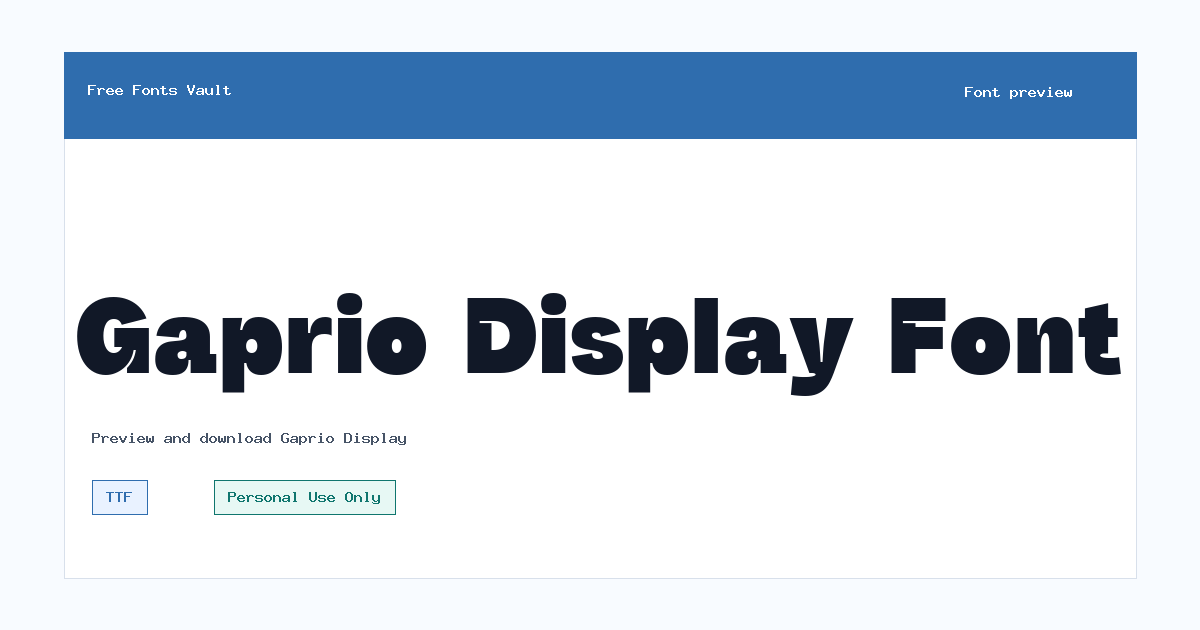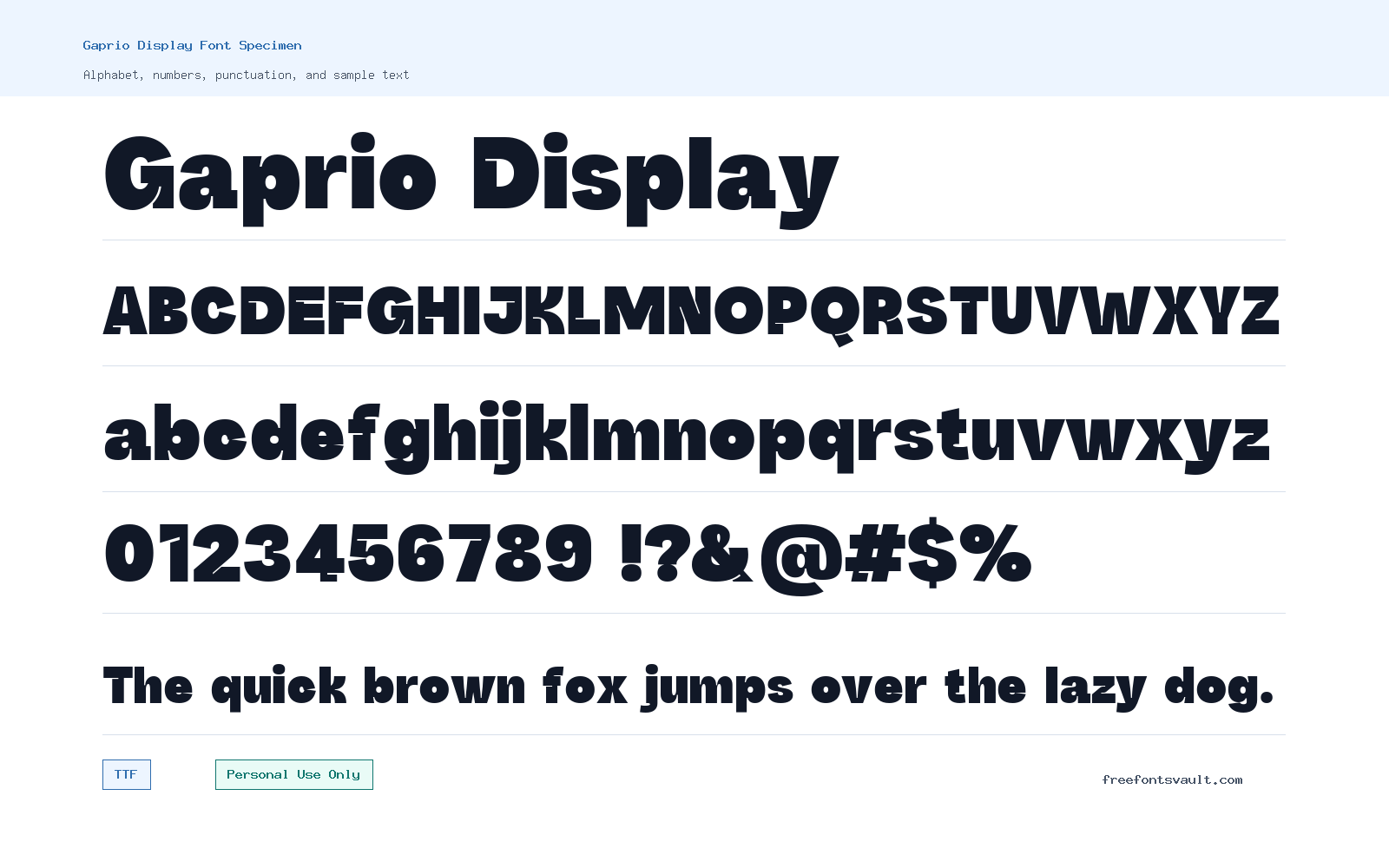
Gaprio Display
Gaprio Display is a display sans serif made for strong, short text: headlines, poster lines, brand mockups, logo sketches, and social graphics. The demo files include regular and italic TTF styles, so visitors can test both upright and slanted settings before deciding whether the typeface fits a project.
About Gaprio Display
Gaprio Display has the kind of role its name suggests: it is meant to be seen at display sizes rather than hidden inside long paragraphs. Public listings describe it as a display, geometric, sans serif typeface, and the demo naming points to a family built for presentation use. In practice, that makes it a better choice for a title, masthead, packaging concept, event graphic, fashion-style poster, or a branding direction than for body copy. Use the preview box to test the words that actually matter in your design, such as a brand name, product line, event title, or short callout. Display fonts can look excellent in one word and less convincing in a full sentence, so checking real text is more useful than judging from an alphabet sample alone.
The available styles are regular and italic in TTF format. That gives you a simple but useful pairing inside the same family: keep the regular style for main titles and use the italic for a secondary phrase, tagline, date, label, or contrast line. For logo work, test the spacing carefully, especially with letters that create open gaps or tight joins. If you are building a poster or web mockup, try Gaprio Display at large sizes first, then reduce it to see where the shapes stop feeling clear. It may pair best with a quieter sans serif for navigation, captions, product descriptions, or article text. Avoid using another loud display face beside it unless you want a deliberately busy layout. A plain grotesque, neutral sans, or simple serif can let Gaprio Display carry the visual identity without making the page feel crowded.
- Display sans serif style suited to short, high-impact typography rather than long reading text.
- Public character-map information lists broad Latin coverage with accents, punctuation, currency marks, arrows, math symbols, and common ligatures, though the exact glyph count should be checked in the font file.
- Logo concepts and brand identity mockups
- Poster headlines and event graphics
- Website hero titles and landing page mockups
- Packaging concepts, labels, and product names
- Social media graphics with short text
- Editorial display titles, covers, and presentation slides
Gaprio Display is credited to Diki Pradipta Tri Atmojo, with Lettertype Studio Co. listed as the foundry. Lettertype Studio describes itself as an independent type foundry based in Bandung, Indonesia.
Start by previewing your exact headline or brand name in both regular and italic. Check spacing at large sizes, then test the same words smaller for mobile mockups and thumbnails. For web designs, use Gaprio Display as a hero or title face and pair it with a more neutral text font for paragraphs, menus, forms, and captions. For logo work, make sure the licensing is upgraded before any commercial use, and consider customizing spacing or outlines only after confirming the license allows that kind of modification.
What kind of font is Gaprio Display?
It is presented as a display sans serif, with public listings also placing it under geometric and sans serif categories. It is best treated as a headline and branding font rather than a paragraph font.
Does Gaprio Display support accented characters?
A public character map lists many Latin accented characters along with punctuation, symbols, currency marks, arrows, math signs, and ligatures. If your project depends on a specific language, preview the exact words before using it.
What font should I pair with Gaprio Display?
Pair it with a calm text face. A neutral sans serif is the safest option for websites and brand systems, while a simple serif can work for editorial layouts. Let Gaprio Display handle the title and keep supporting text easy to read.